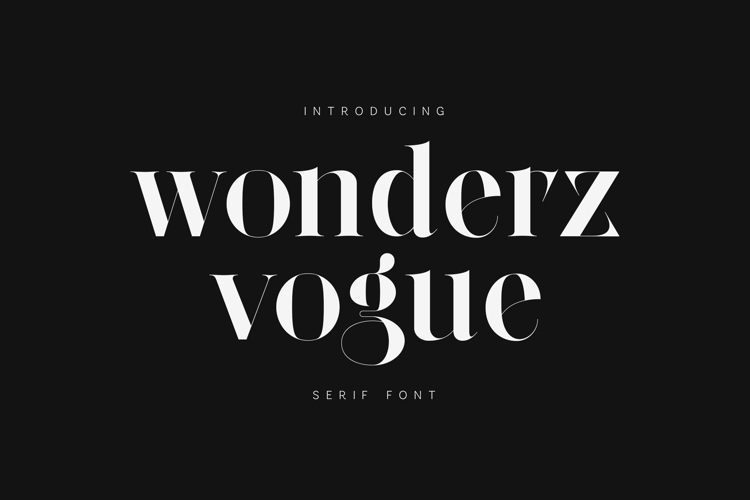
Wonderz Vogue Elegant Fashion Serif Font
Wonderz Vogue is an elegant, high-contrast serif font inspired by fashion editorials, luxury magazines, and modern couture typography. With its sculpted curves, sharp terminals, and refined proportions, Wonderz Vogue delivers a bold yet sophisticated voice made for visual impact.
Designed for headlines, magazine covers, luxury branding, posters, logos, editorial layouts, album artwork, and premium campaigns, this typeface commands attention while maintaining elegance and balance. Its dramatic contrast and graceful flow make every word feel intentional and expressive.
Wonderz Vogue shines best at large sizes, where its fashion-forward character can fully unfold. It pairs beautifully with minimalist sans serifs or understated body fonts for modern, high-end design systems.
The font includes uppercase and lowercase letters, numerals, punctuation, symbols, and extensive multilingual support, making it suitable for professional and international use.
If you’re looking for a serif font that feels editorial, luxurious, and unapologetically stylish, Wonderz Vogue brings runway confidence to typography.